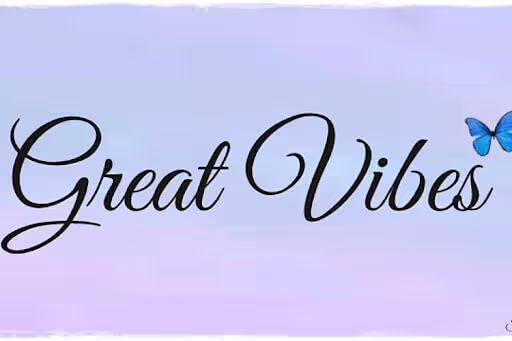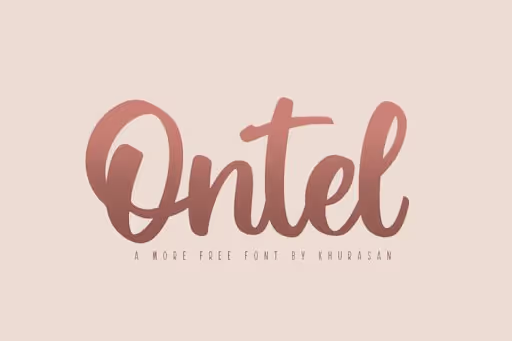
30 Travel Fonts Perfect for Vloggers and Travel Agencies
Travel channels are some of the most popular channels on YouTube. So, it’s crucial to develop an effective branding strategy to compete with other channels and build your following. Great travel fonts can help with that.
Of course, high-quality content is necessary to win over your audience, and that's the primary aspect all travel vloggers should focus on. However, certain secondary aspects like professional logos, descriptive banners, catchy thumbnails, and font style can help with brand positioning.
Today, we will reveal a list of the 30 best free travel fonts that can give your channel a professional and branded look.
30 Best travel fonts to use for your branding
1. Cyrano (free for personal use)
Cyrano is a lavish serif font, with stylish and decorative lettering.
Its thin lines and extended ligatures assign a rich and classy look that can look good on your logos, especially if you make travel and lifestyle-related videos. It could also make a great travel poster font, especially for elegant destinations, such as Paris or the Cote d’Azur.
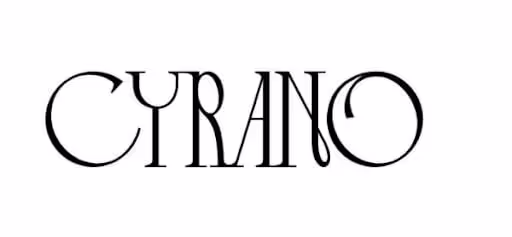
2. Valeria (free for personal use)
If you are a travel vlogger who likes to visit exotic destinations, then Valeria can be a good font choice.
Its curvy ends add a lavish touch to your logos and blend well with the pointy edges that make your text pop out.
3. Lofty Goals (free)
Lofty Goals is a script font that passes the fun vibe check. If you travel to more upbeat places like beaches and party destinations, this fun font can be a nice free font for your logos.
Many popular travel vloggers use this font in their logos and thumbnails.
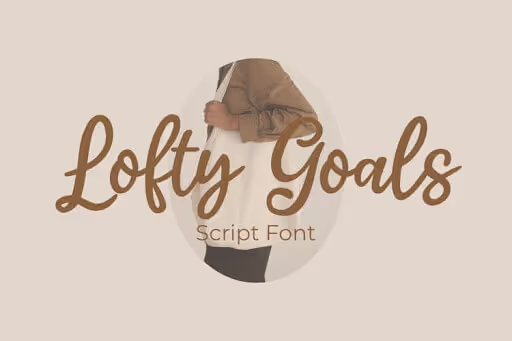
4. Attack Graffiti (free)
If you are a travel vlogger that documents more street-style content than exotic travel destinations, then Attack Graffiti can be a good font choice for your channel.
It blends the rawness of the streets and the upbeat feeling of wandering. The dripping effect at the end of letters makes it one of the coolest graffiti fonts out there.
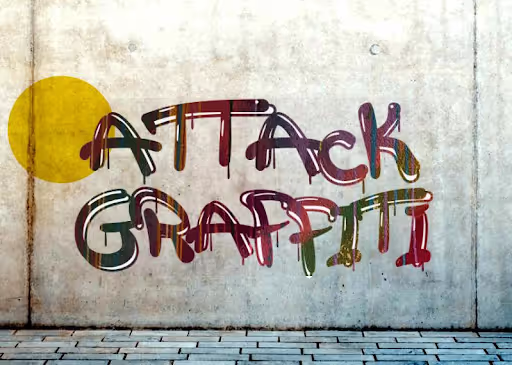
5. Park Lane (free)
One of the biggest social media branding mistakes that any travel vlogger can make is creating a brand image that does not align with its content.
Designed by Alan Meeks, Park Lane is a free-flowing font that comes in extended ligatures; and it comes in multiple variants. Its pointy and cursive edges can add a classy tourist feel to your logos, banners, and thumbnails.
If you make videos about urban cities and their culture, for example, New York City, this urban font is one of the best free logo fonts you can go with.
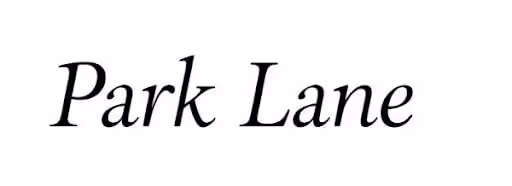
6. Indira K (free)
Indira K is a font inspired by Oriental images but modified to a more European style of classic serif lettering. Thanks to its relative simplicity it could make a great travel poster font, as it could fit any number of backgrounds.
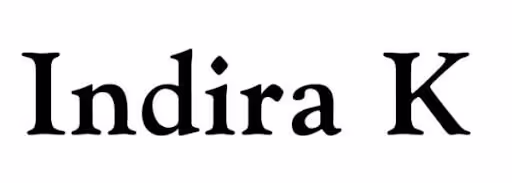
7. Azonix (free)
Not every travel vlogger makes videos about off-beat destinations, summer vibes, and beaches; some are more into futuristic and urban cities like Singapore or Tokyo. Azonix should be on your channel if you make such travel content.
The font's character style has a sci-fi vibe, and its sharp edges add a touch of uniqueness to your logos and banners.
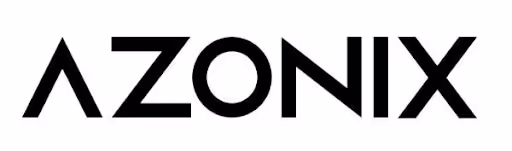
8. Senja Santuy (free)
Senja Santuy is a monoline script font that blends simplicity and casualness. It’s a great wanderlust font that inspires a sense of adventure and being on the road.
If your videos are about natural landscapes and wildlife, this font style can also add a soothing feel to your channel.
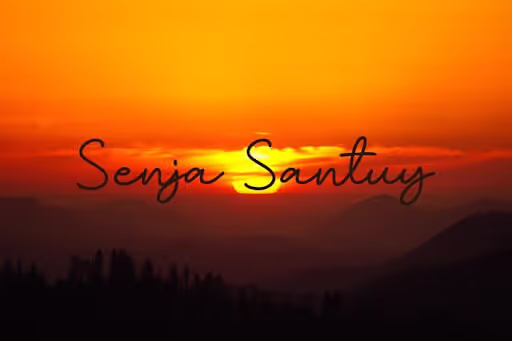
9. Awal Ramadhan (free)
Due to its Arabic influence, Awal Ramadhan is a popular font choice among vloggers who make videos about middle eastern countries. This modern decorative font can add a unique flair to your channel.
Its Arab-inspired character design makes it an excellent font choice for YouTube banners and thumbnails.
10. Assassin Ninja (free)
If you are into font styles with brush strokes, then Assassin Ninja is one of the free fonts for logos that should be on your list.
Its unique design adds style and charisma to your logos, banners, and thumbnails. The edges of the fonts are smudgy and pointy, adding a handwritten feel to your designs.
Although you might think this font is more appropriate for games, it could also make for a great travel font. Just imagine it on a thumbnail or poster for some exotic destination in Asia.
11. Monument Valley (free)
Monument Valley is another good wanderlust font to choose if you are looking for something simple and minimalist. However, it is more suited for titles on banners than logos due to its limited character style.
It is an all-uppercase font with limited signs, symbols, and punctuations.
12. Aidilfitri (free)
Aidilfitri is another excellent font that is inspired by the Arabic writing style. If you are a travel agency in Middle Eastern countries, this font can be an excellent choice for your logos, banners, and even business cards.